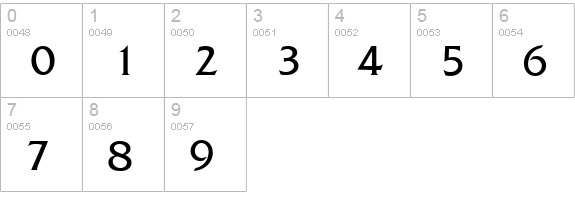
QuadratSerial-Light-Regular is a refined, elegant variant in the QuadratSerial typeface family \xE2\x80\x94 well suited to elegant body text, refined sub-headings, and luxury branding.
QuadratSerial-Light-Regular font is a modern and elegant typeface that exudes sophistication and versatility. With its clean lines and sleek design, this font is perfect for a wide range of design projects, from branding to editorial work. The light weight of this font gives it a delicate and refined appearance, making it ideal for adding a touch of elegance to any project. Best of all, QuadratSerial-Light-Regular font is available for free download at FontsMarket.com. You can easily access this high-quality font to enhance your designs and bring your creativity to the next level. Don't miss out on the opportunity to add this beautiful typeface to your collection and elevate your design projects with its timeless appeal. Download QuadratSerial-Light-Regular font today and make your designs stand out with style and sophistication.